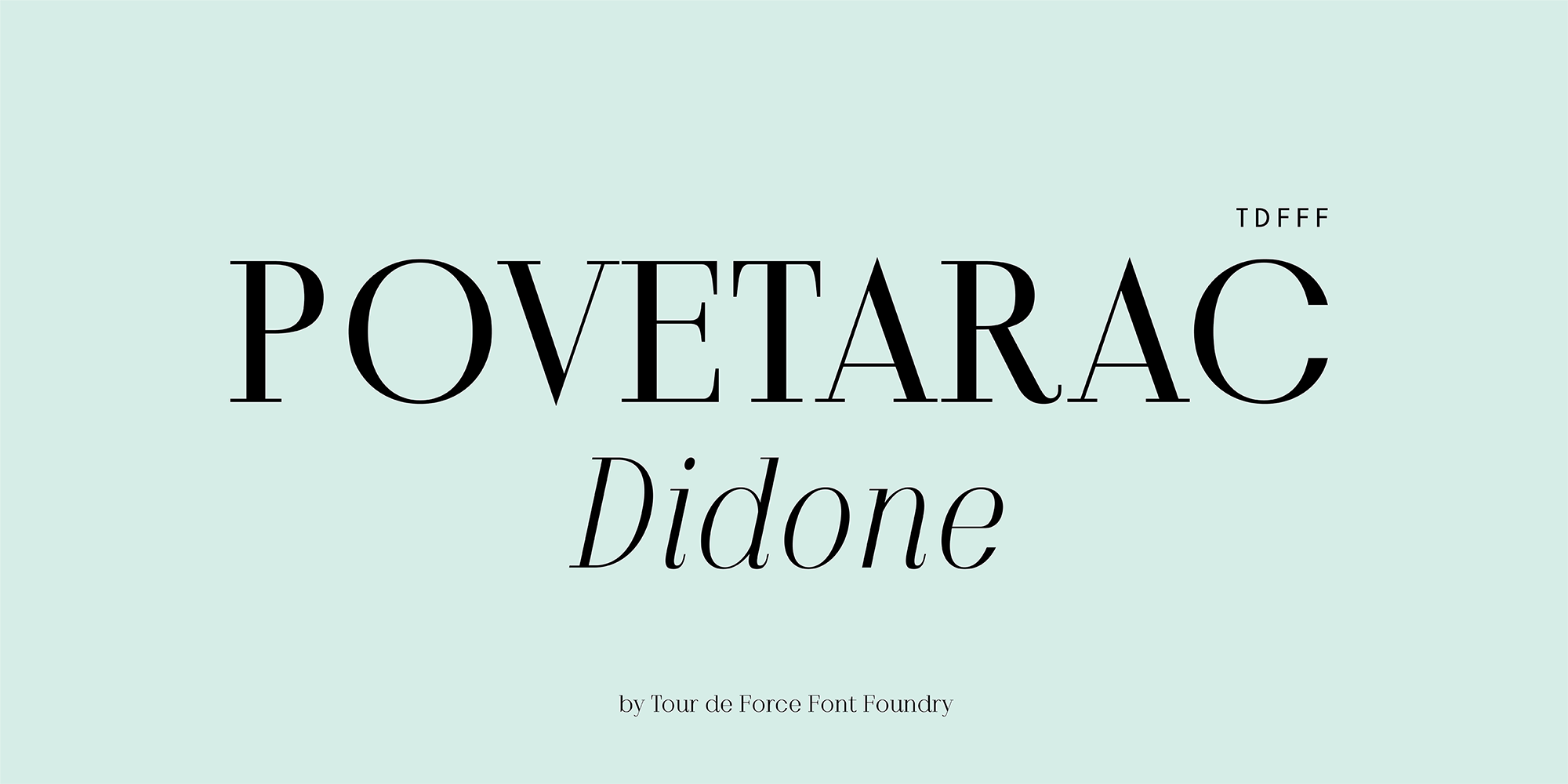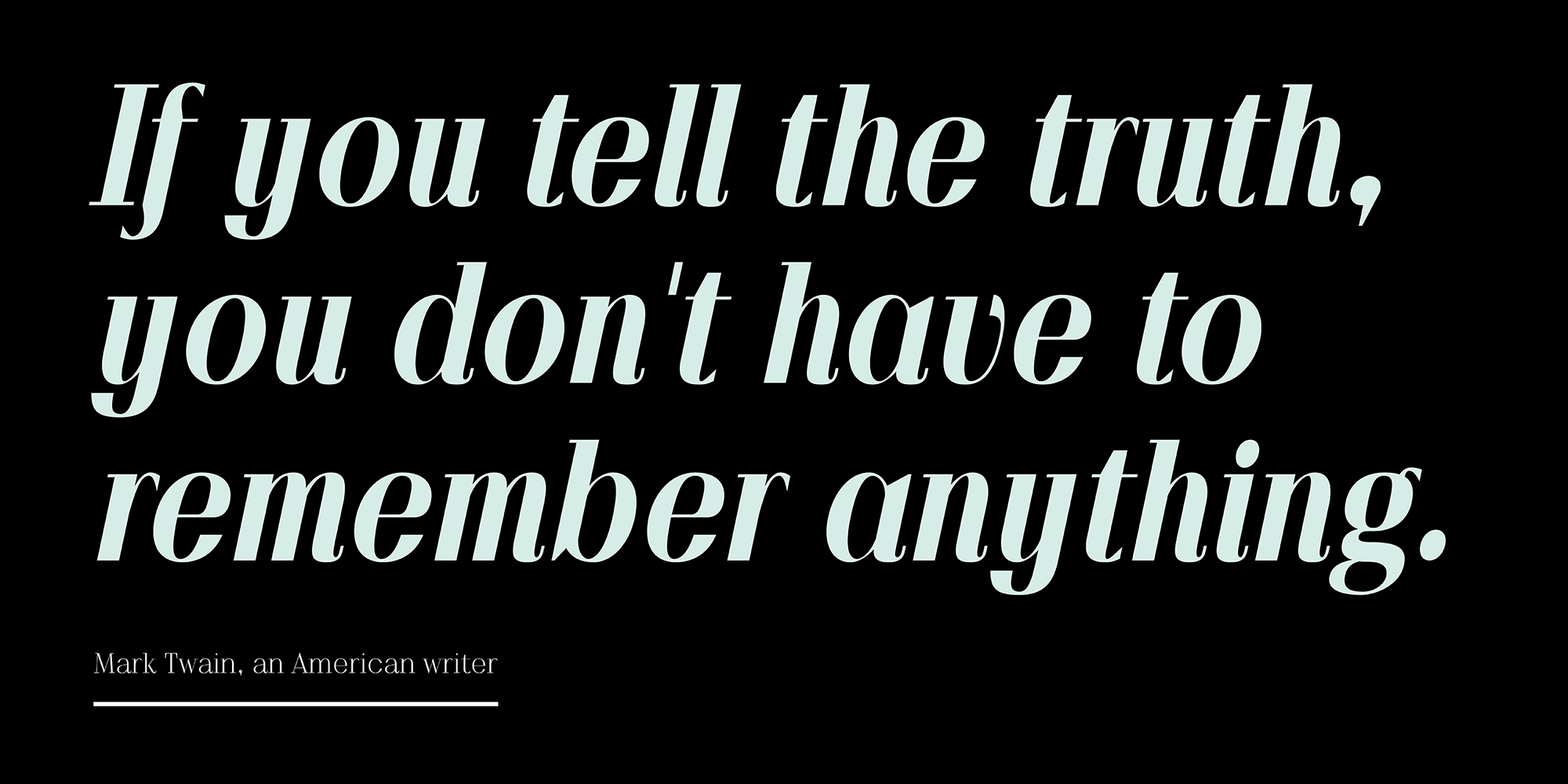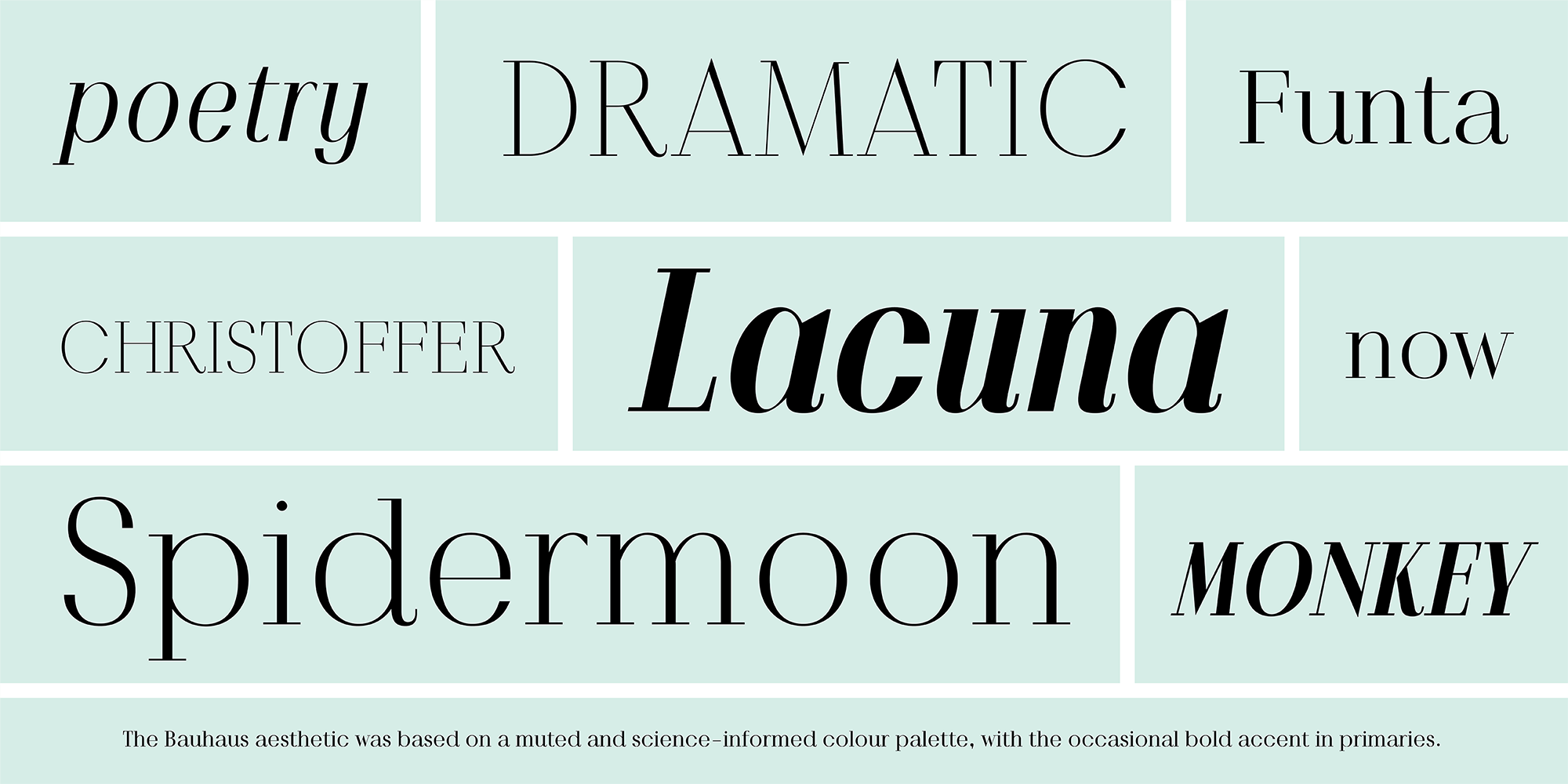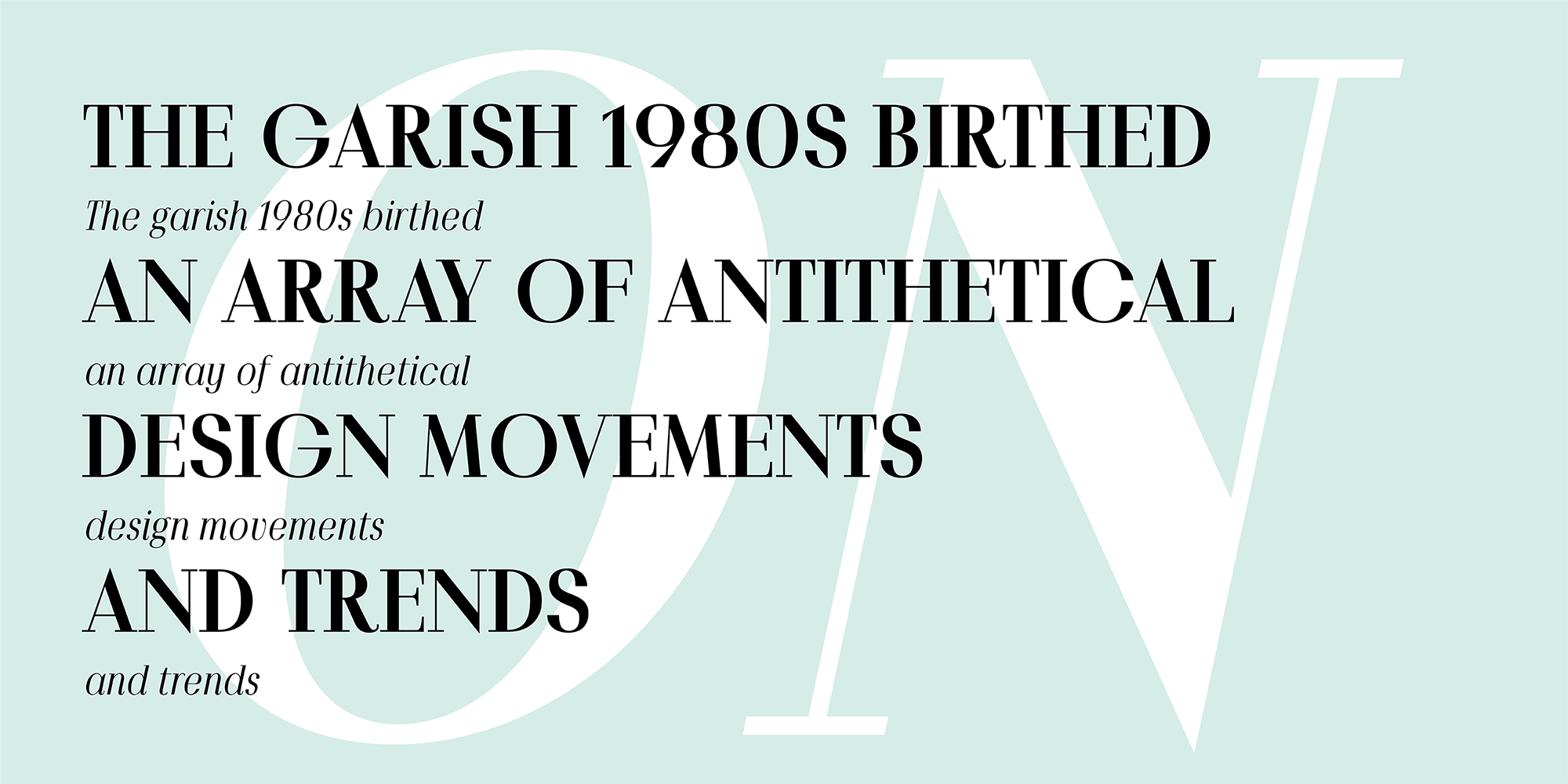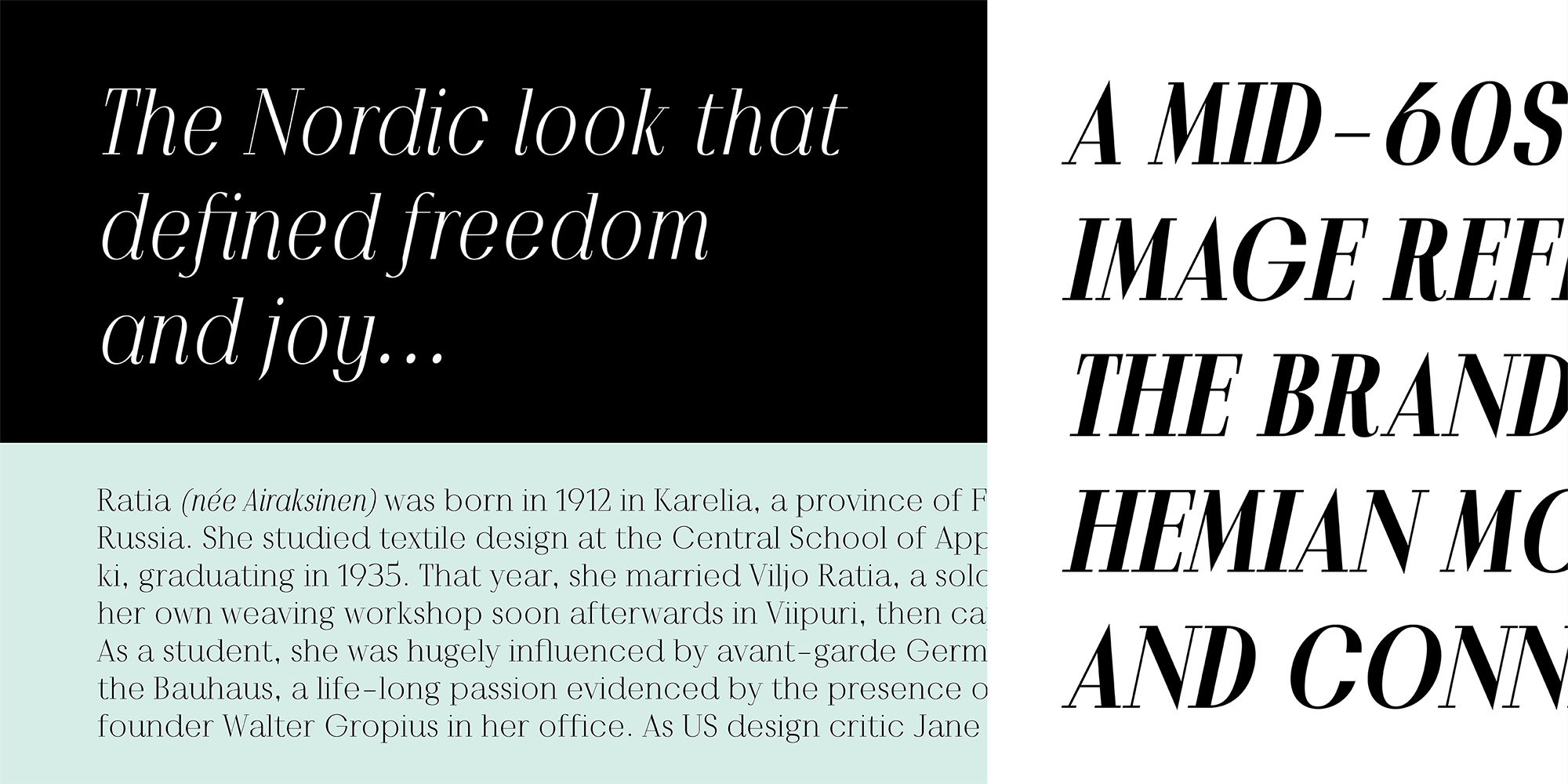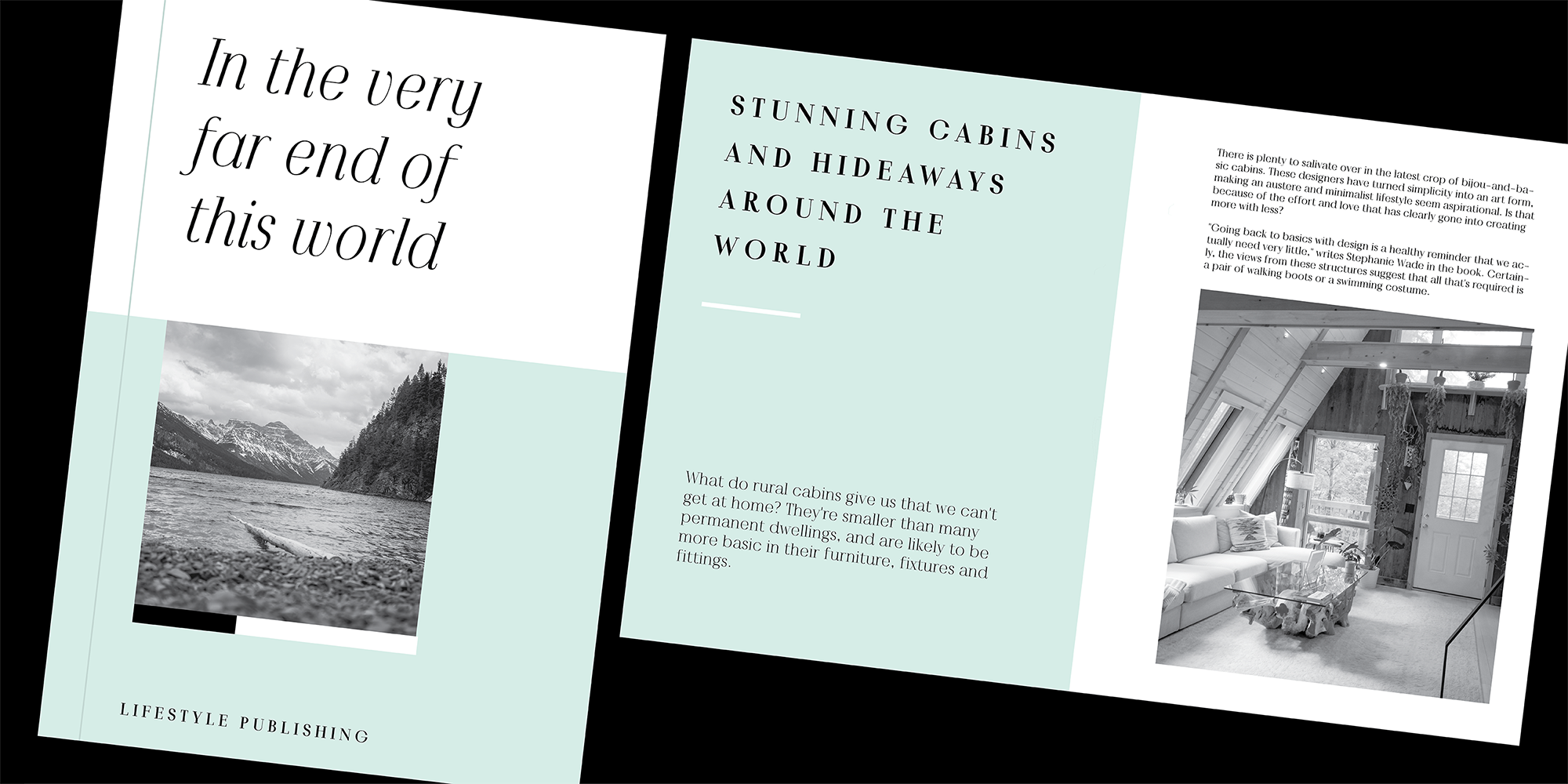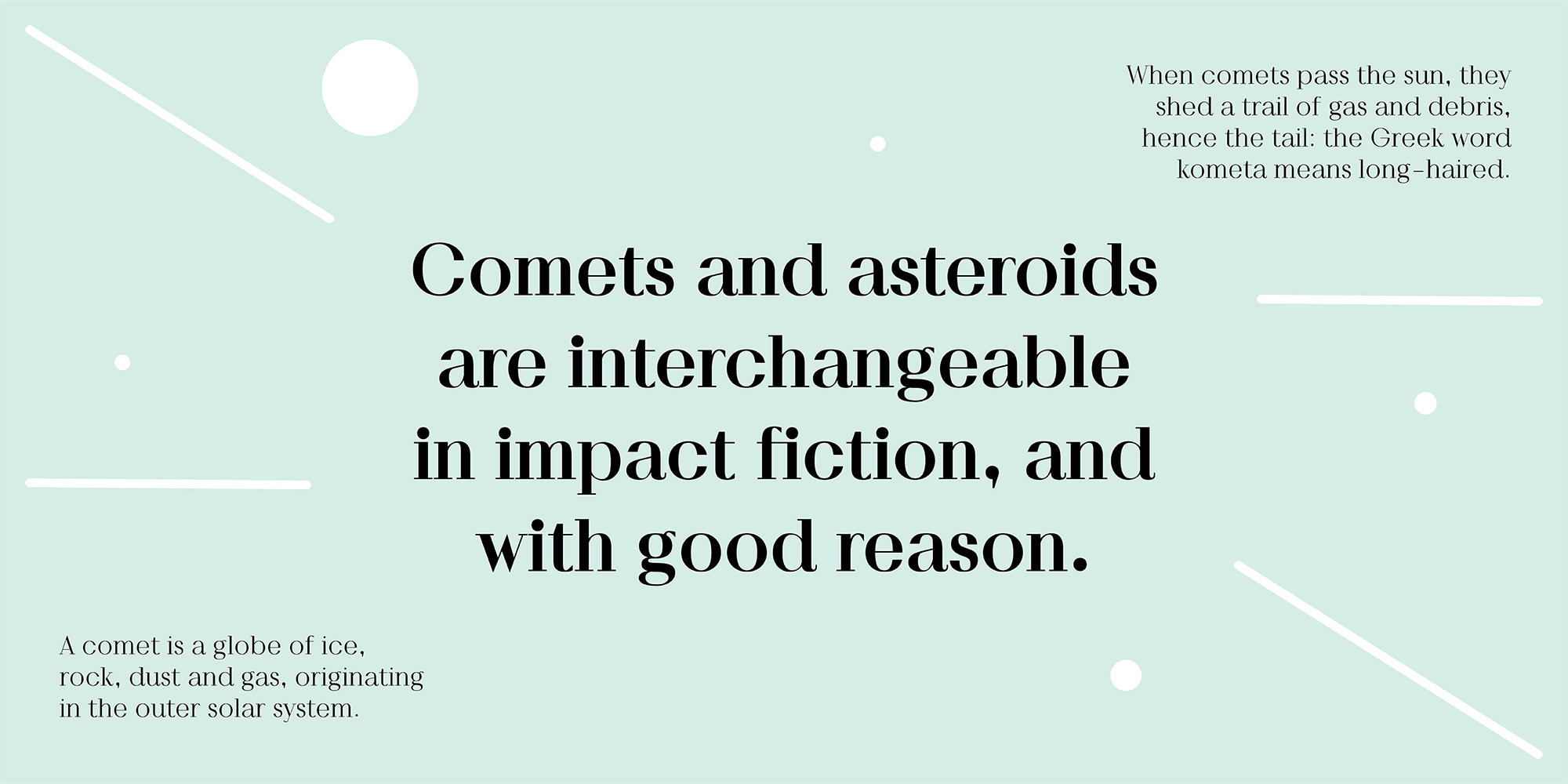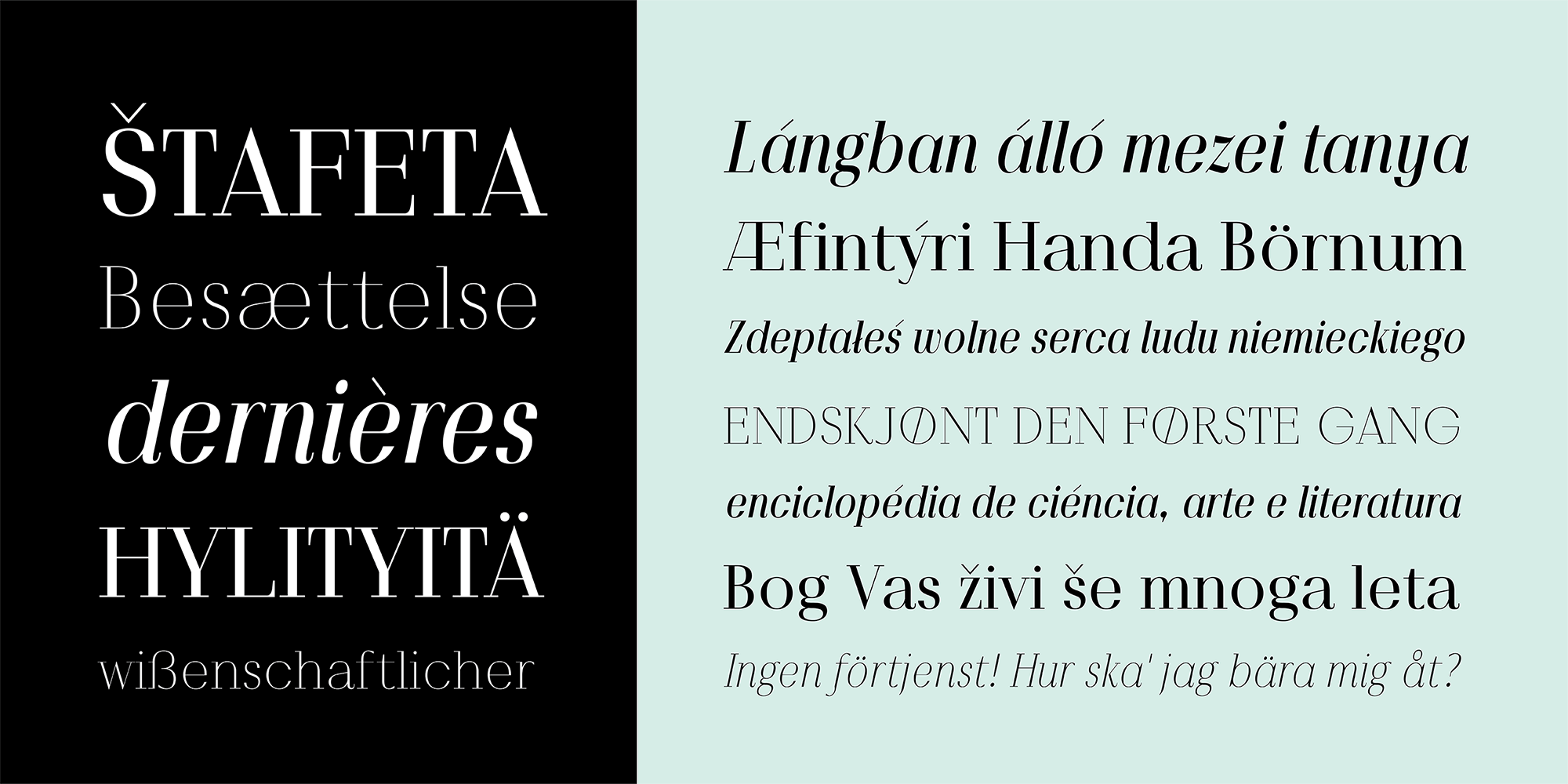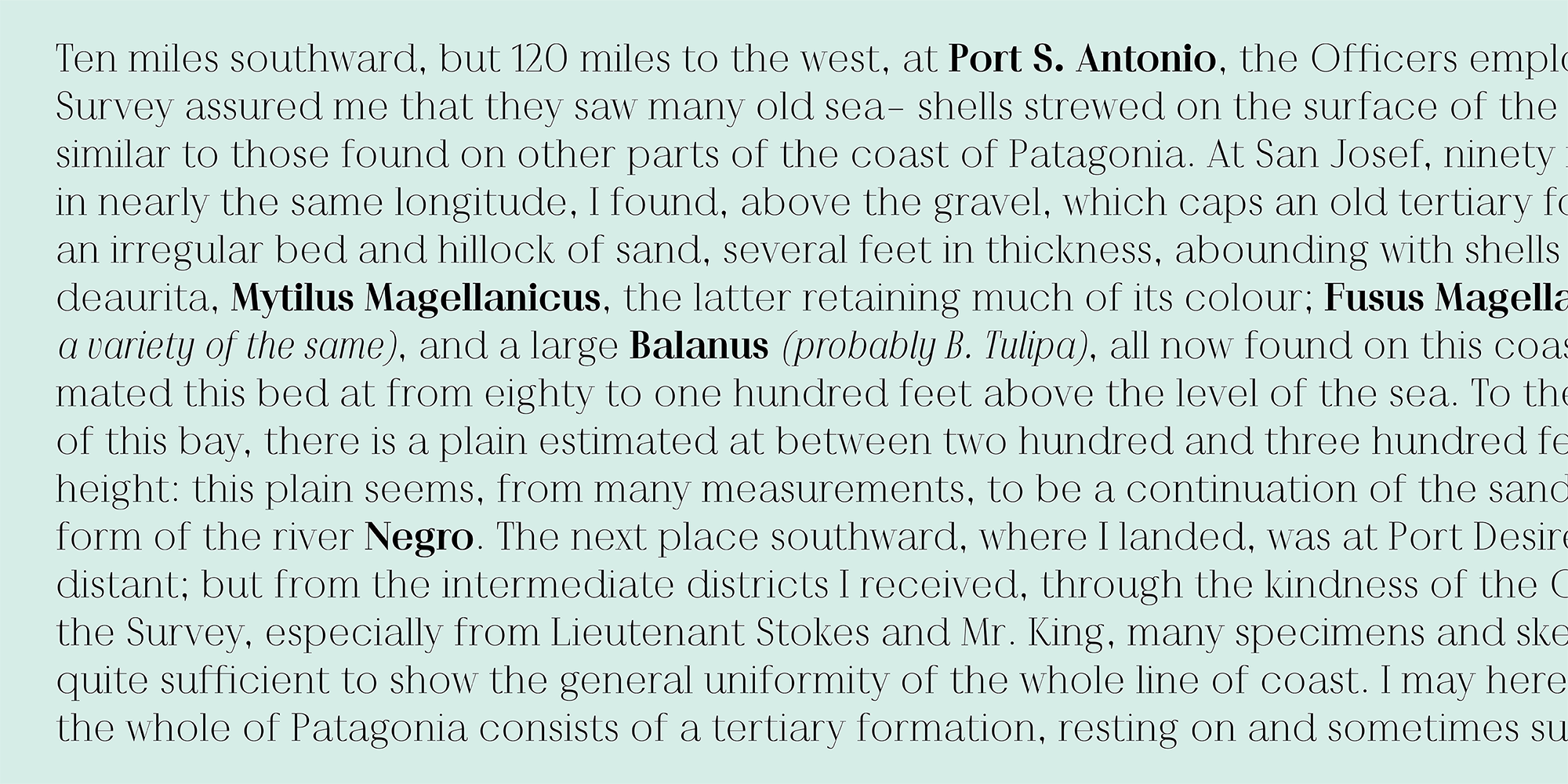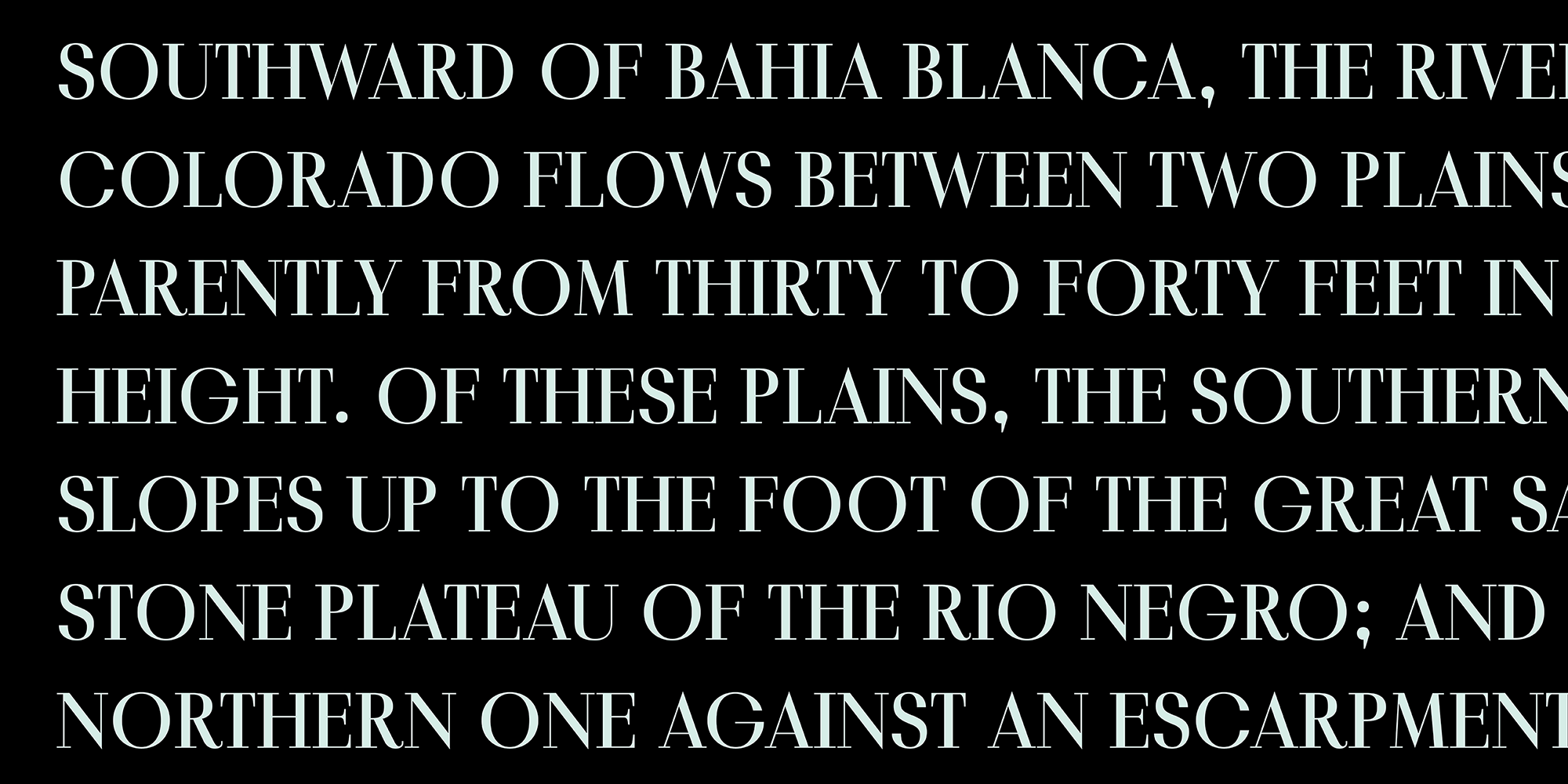
Povetarac Didone font family is part of Povetarac Superfamily together with Povetarac Sans and Povetarac Display.
Available in 6 weights with matching italics, Povetarac Didone relays on lively uppercase proportions that took inspiration from vintage typefaces. It is well balanced family, elegant and fully recognizable. One of its characteristics are straight and wide terminals without usual serifs for this kind of typefaces. Playful and harmonic italics are one more uniqueness of Povetarac Didone. They were gently crafted to fulfil they role not just for editorial use, but as display typeface as well.
Comes with Fractions and extended Latin character map.